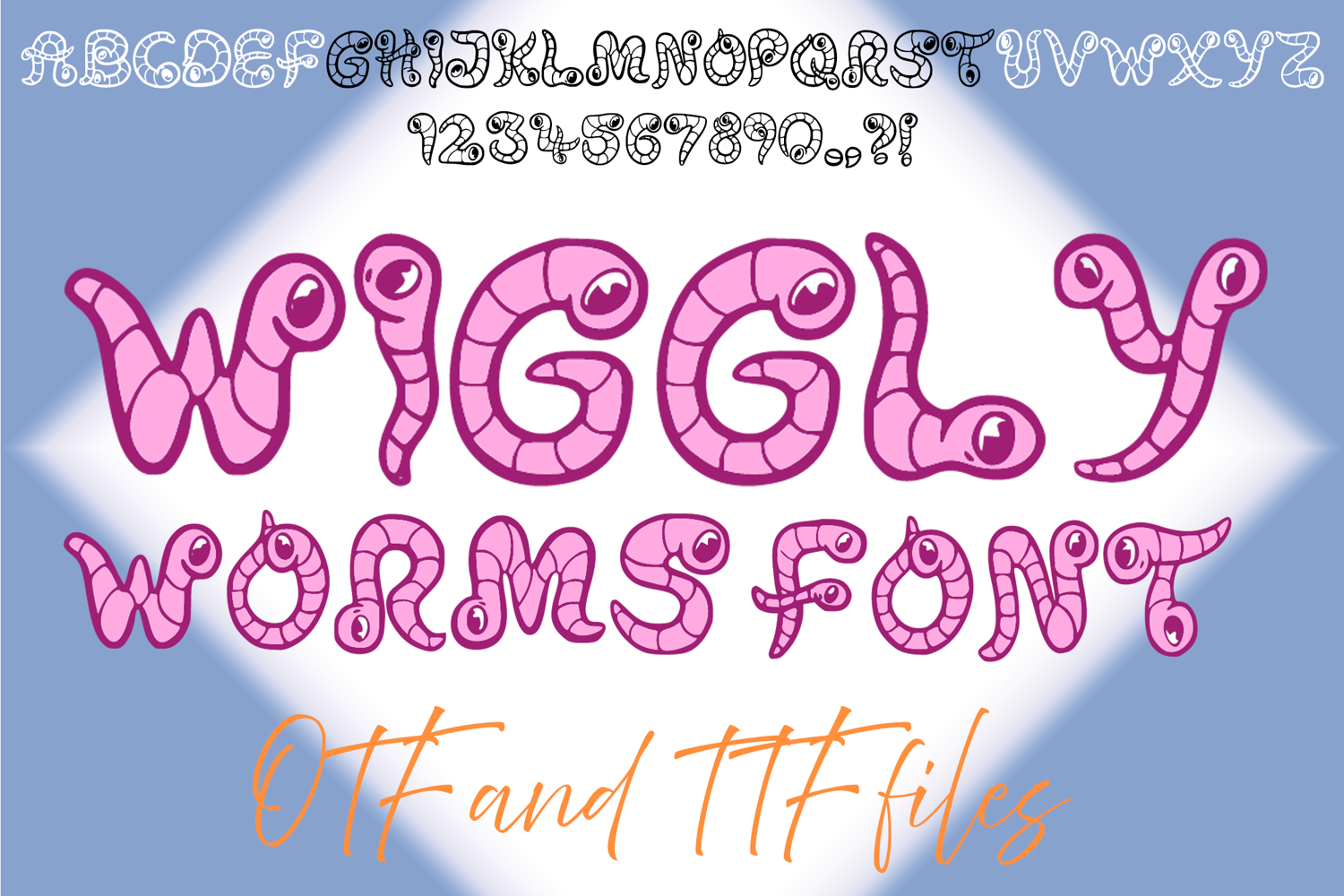
Get ready for some squirmy, giggly fun with Wiggly Worms Font! This absolutely adorable typeface is bursting with playful charm, featuring cute, cartoon-style worms that twist and turn to form each letter. It's more than just a font; it's an instant smile-generator, perfect for projects that need a touch of whimsical cuteness and lighthearted fun!
Each character in Wiggly Worms Font is meticulously designed to resemble a cheerful, segmented worm, complete with expressive eyes that peek out from the curves. Its bouncy, organic shapes and friendly demeanor make it an ideal choice for children's books, nursery decor, garden-themed events, playful branding, animated titles, or any design calling for a unique blend of nature-inspired whimsy and cartoon delight.
Whether you're creating invitations for a bug-themed party, designing labels for a kids' product, crafting cheerful social media posts, or adding a quirky touch to school projects, this font will bring an undeniable sense of joy and originality to your work. Its clear yet playful forms ensure readability while delivering a memorable visual experience.
If you're looking to infuse your designs with a sense of playful wonder, charming cuteness, and an undeniable happy vibe, Wiggly Worms Font is your ultimate tool. Dig in and let your creativity wriggle!